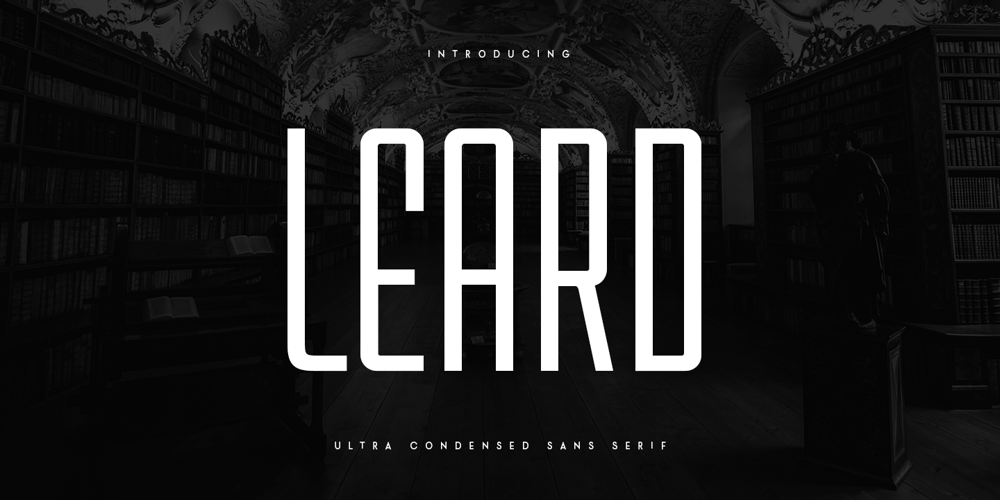
Leard Font Family was designed by Zamroni Hamzah and published by Sensatype Studio. Leard contains 1 styles and family package options. A New Ultra Condensed Sans Serif font are prepared special for heading, title, and typography needs. It’s so perfect to add your style and headline overview. And specially for Leard font, we crafted for unique style and modern feels so enjoy to create any project that will show your main idea out.Leard Ultra Condensed Sans Serif Font ready with: Any options to get creative variations 3 files format already Preview as a inspirations that you can do with Leard font Ready with All characters Wish you enjoy our font. 🙂